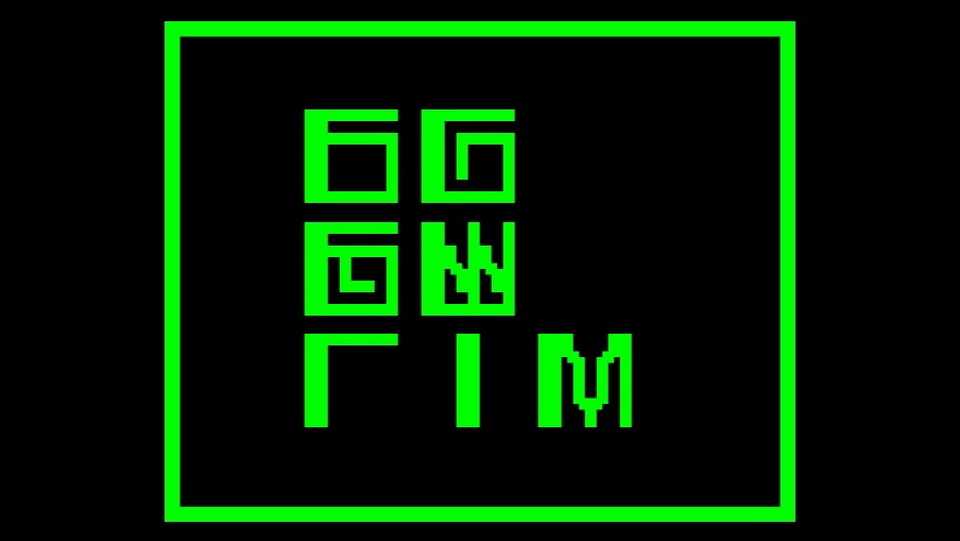
Download Unicima font, a unique, puzzle-inspired typeface designed for creative thinkers and experimental designers. At its core, Unicima pushes the boundaries of traditional typography, challenging you to think outside the box while maintaining a clean and minimalistic aesthetic.